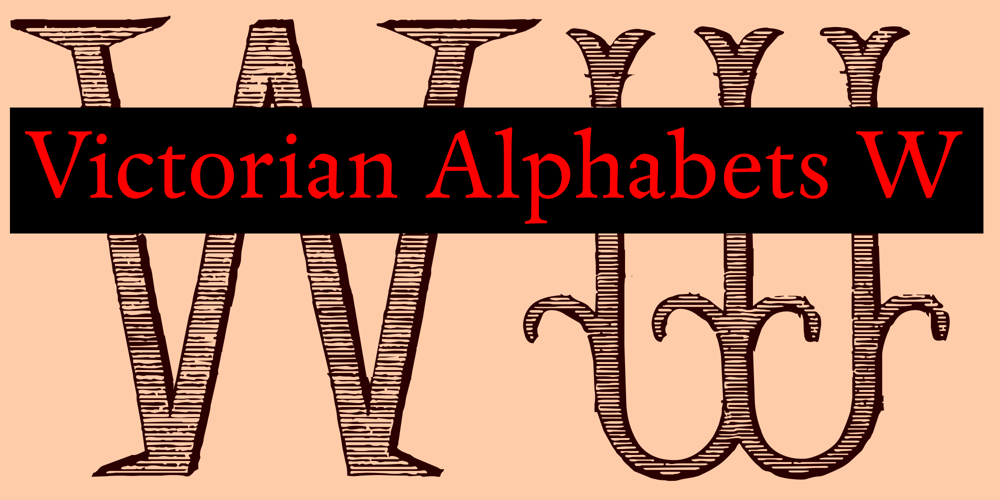
Victorian Alphabets W Font Family was designed by Paulo W and published by Intellecta Design. Victorian Alphabets W contains 1 styles and family package options. Victorian Alphabets is a incoming family of complete victorian style alphabets, researched and developed upon a comprehensive number of vintage books, magazines and catalogues from XIX century. The “Victorian Alphabets W” font has just W’ designs, performing 52 different W’s to your use. Here at MyFonts you can get more TWENTY fonts of this family, wih a very and atractive array of alphabets and letters to complete your artwork